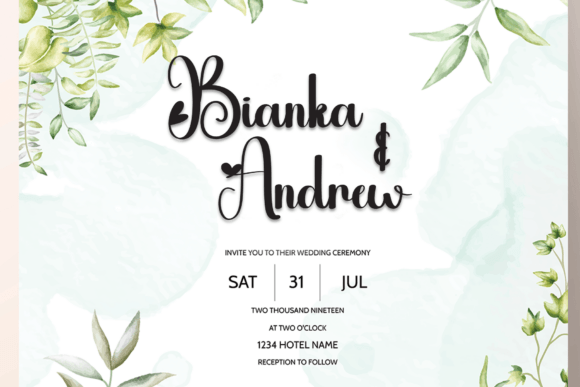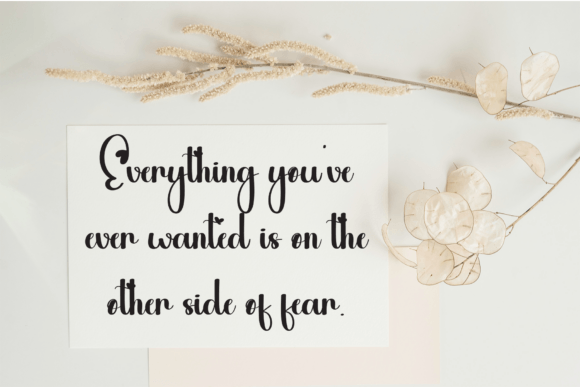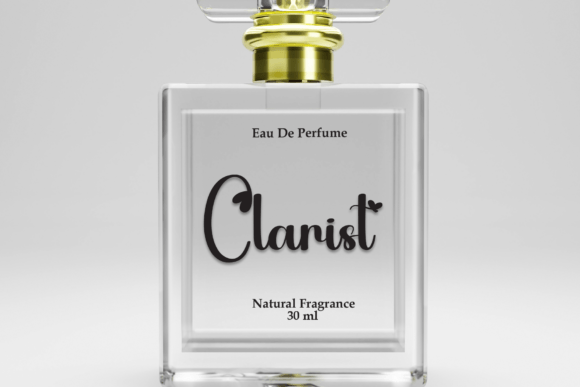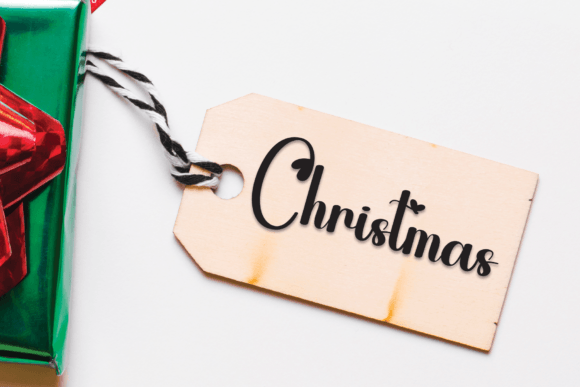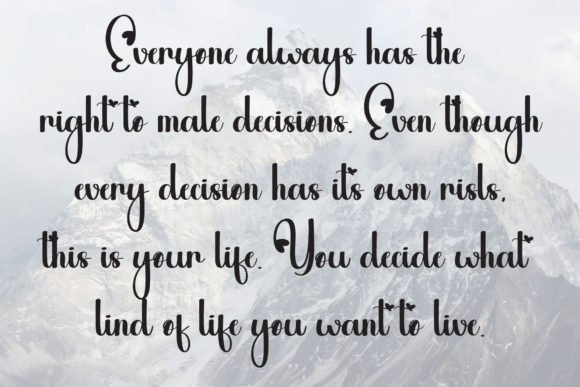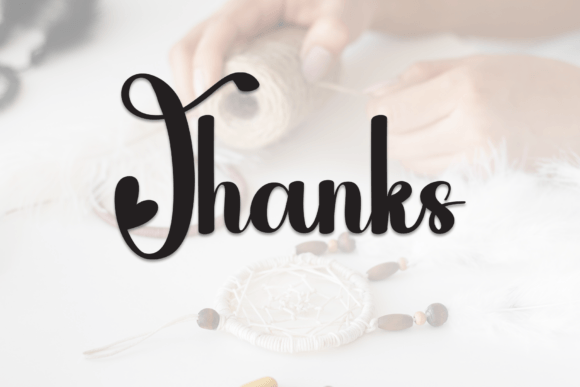
Introducing Handmade Font: The Perfect Choice for Adding a Touch of Whimsy to Your Designs
Are you tired of using the same old fonts in your creative projects? Do you want to add a touch of personality and warmth to your designs? Look no further than Handmade Font, a charming and unique handwritten typeface that’s perfect for bringing a naturally friendly vibe to your work.
The Perfect Blend of Playfulness and Elegance
Handmade Font is a delightful and playful typeface that’s designed to evoke a sense of joy and whimsy. Its charming and warm letterforms are perfect for crafting wedding invitations, personalized cards, and other designs that require a touch of elegance and sophistication. Whether you’re a designer, crafter, or DIY enthusiast, this font is sure to become your go-to choice for adding a dash of fun and personality to your projects.
What Makes Handmade Font So Special?
So, what sets Handmade Font apart from other fonts on the market? Here are just a few reasons why this font is a cut above the rest:
• Unique and Handwritten**: Handmade Font is a truly unique and handwritten typeface that’s been carefully crafted to bring a touch of warmth and personality to your designs.
• Playful and Whimsical**: This font has a playful and whimsical feel that’s perfect for designs that require a dash of fun and personality.
• Perfect for a Variety of Projects**: Whether you’re working on a wedding invitation, personalized card, or other design project, Handmade Font is the perfect choice.
• Elegant and Sophisticated**: Despite its playful nature, Handmade Font is also elegant and sophisticated, making it perfect for designs that require a touch of refinement.
How to Use Handmade Font in Your Designs
• Use it for Headings and Titles**: This font is perfect for headings and titles, where its playful and whimsical nature can really shine.
The Benefits of Using Handmade Font
So, why should you choose Handmade Font for your design projects? Here are just a few benefits of using this unique and charming font:
• Adds a Touch of Personality**: Handmade Font adds a touch of personality and warmth to your designs, setting them apart from the crowd.
• Perfect for a Variety of Projects**: This font is perfect for a wide range of projects, from wedding invitations to personalized cards and more.
• Easy to Read and Understand**: Despite its playful nature, Handmade Font is easy to read and understand, making it perfect for designs that require a clear and concise message.
In conclusion, Handmade Font is a charming and unique handwritten typeface that’s perfect for adding a touch of whimsy and personality to your design projects. Its playful and elegant nature makes it perfect for a wide range of projects, from wedding invitations to personalized cards and more. So why settle for boring and generic fonts when you can add a touch of fun and personality to your designs with Handmade Font?